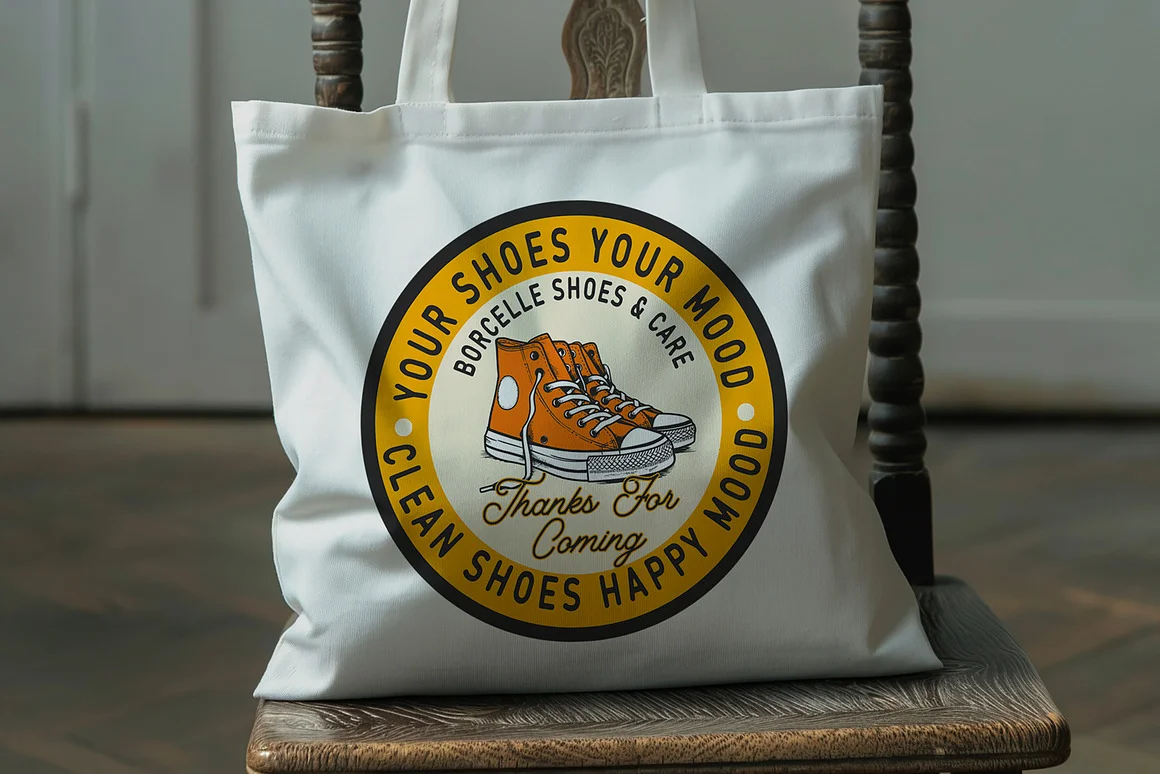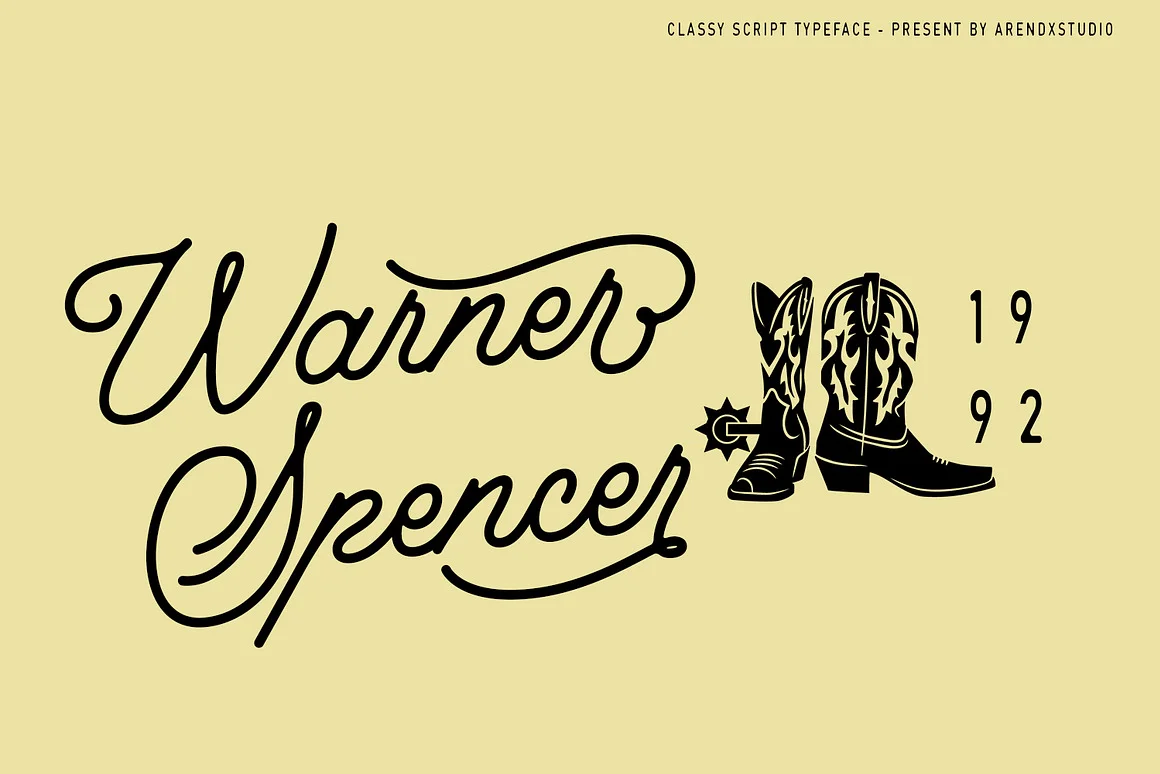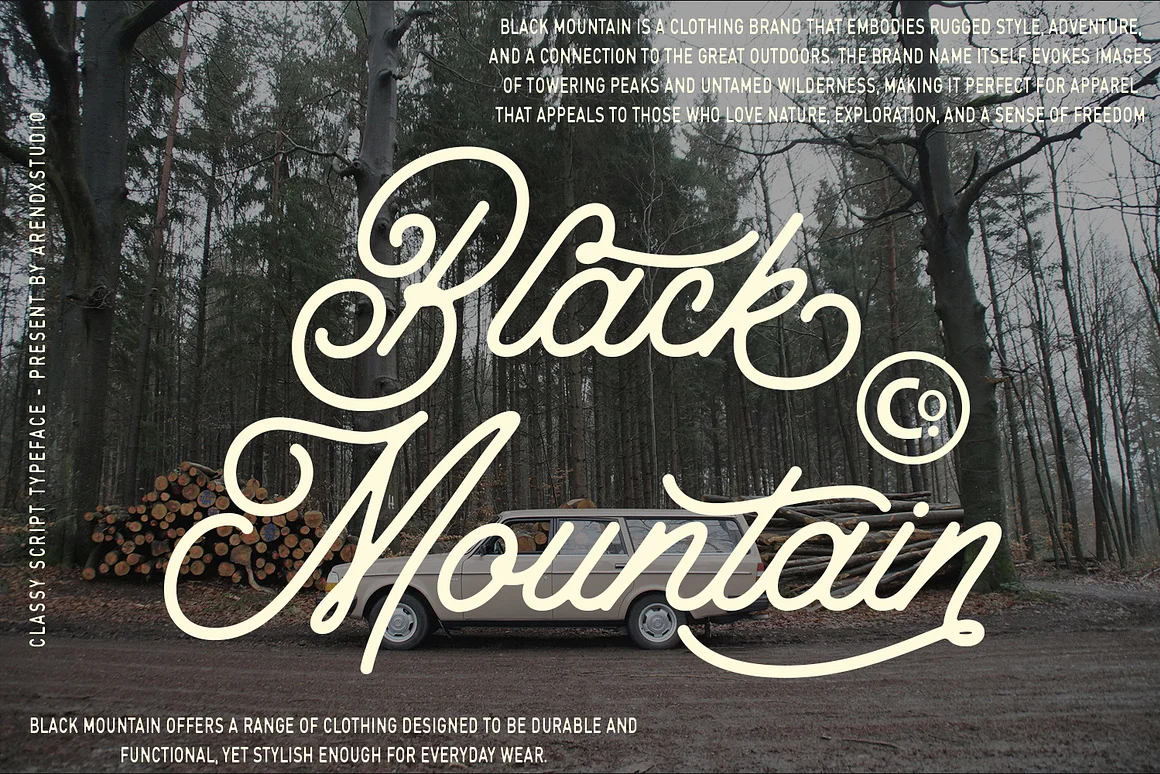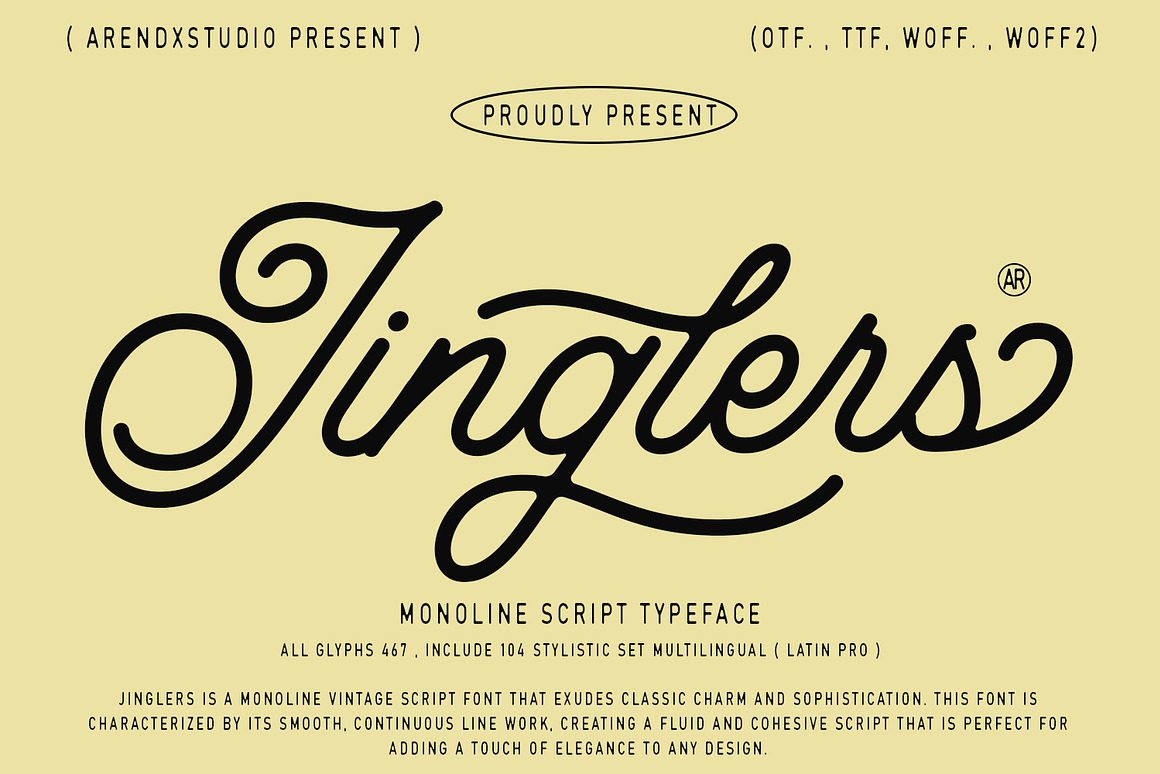
Jinglers - Monoline Script Font
Typography shapes perception at a subconscious level. Jinglers - Monoline Script leverages optical balance across all weights to make every composition feel considered. The typeface brings an elegant, calligraphic sensibility to a broad range of creative disciplines, with the kind of restraint that lets content lead that holds up whether the work is print-first or screen-first.
In practice, Jinglers - Monoline Script proves particularly effective for luxury stationery, fragrance labels, perfume labels, editorial layouts, feminine branding. Designers reaching for it find that the type decisions feel resolved rather than laboured — a useful quality when client timelines are tight.
The range of applications extends to bridal materials, fashion editorials, high-end cosmetic packaging, social media graphics. That breadth is deliberate: the proportions and spacing were stress-tested across a wide range of mock briefs before the typeface was finalised.
Art directors commissioning type-led campaigns find Jinglers - Monoline Script a reliable choice for projects that demand both personality and restraint. The design avoids the self-conscious quirkiness that dates quickly, settling instead for considered distinctiveness that holds up over time.